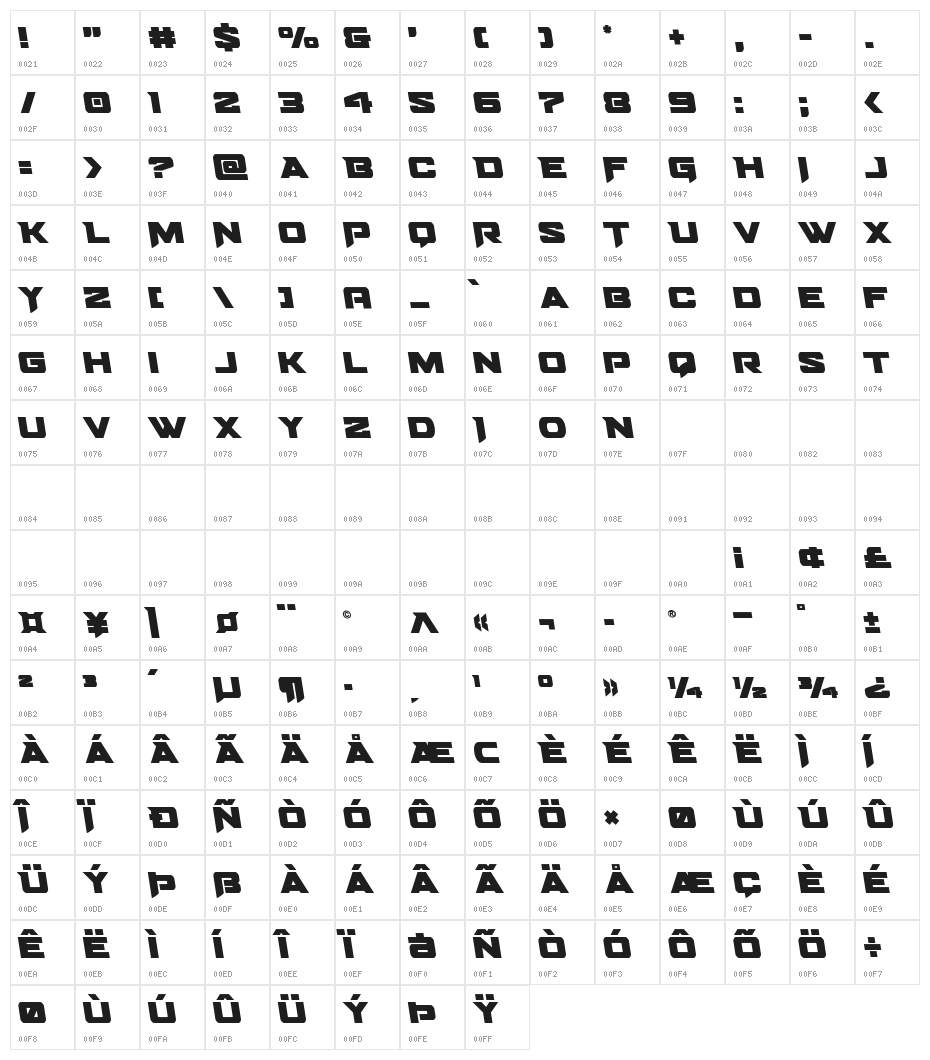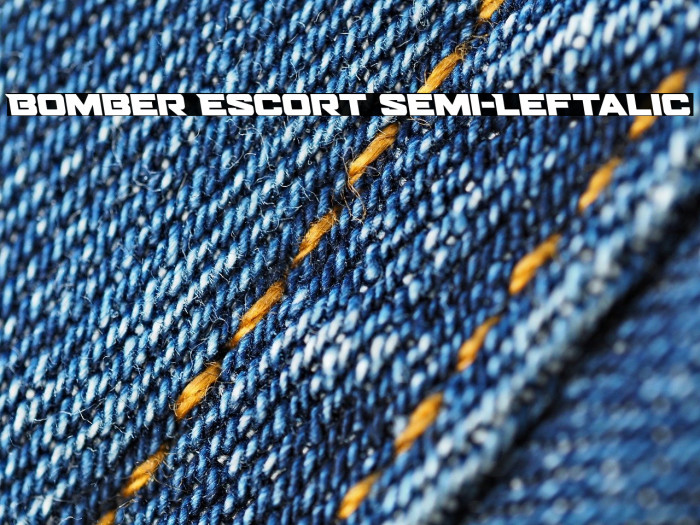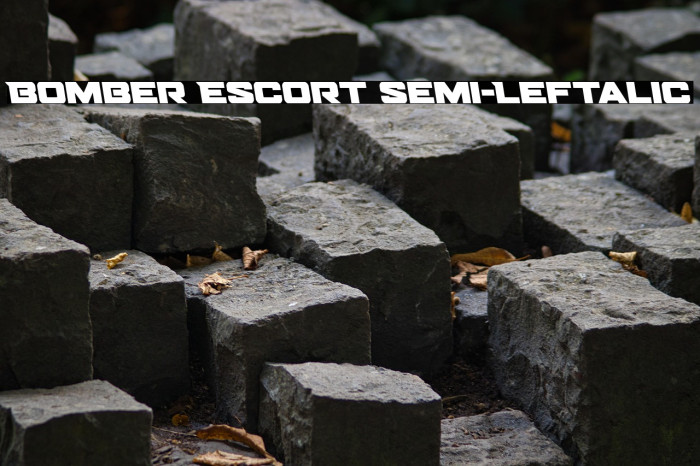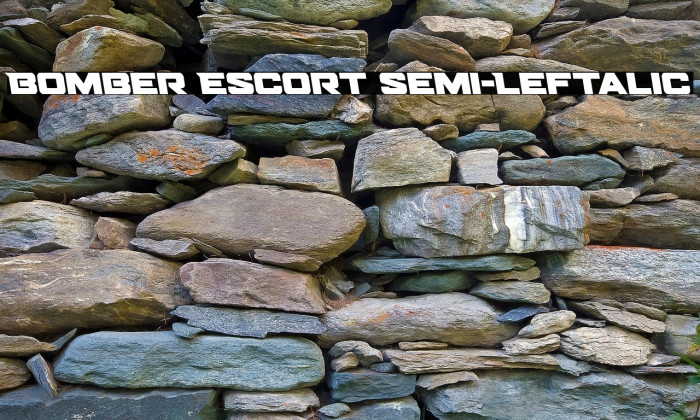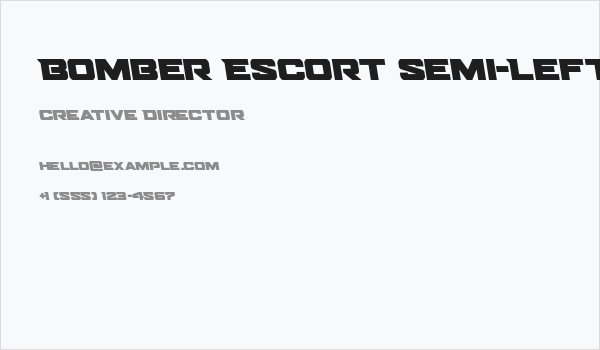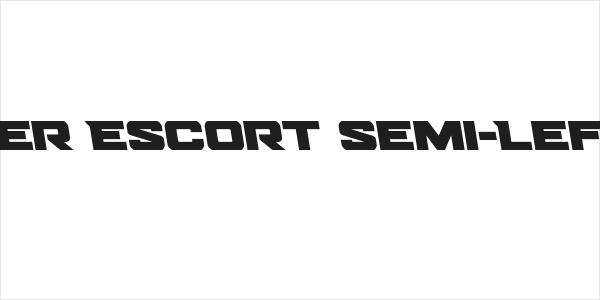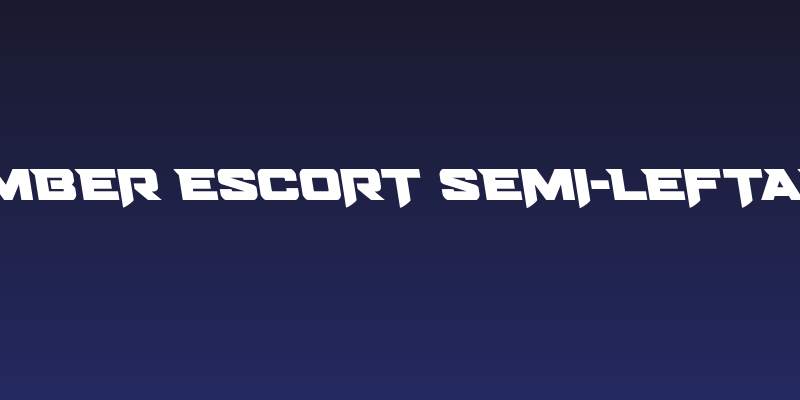
Bomber Escort Semi-Leftalic Font
Bomber Escort Semi-Leftalic Description
This font features a bold and angular design, characterized by its sharp edges and geometric forms. The letters are slightly slanted, giving a dynamic and forward-moving appearance. The uppercase and lowercase letters maintain a consistent style, with a strong emphasis on straight lines and sharp angles. The numerals and special characters follow the same design principles, ensuring uniformity across all glyphs. This font's boldness and unique style make it stand out, suitable for projects that require a strong visual impact.
| Proposed Projects | Ideal for use in posters, video game graphics, branding, and any project needing a bold, impactful typeface. |